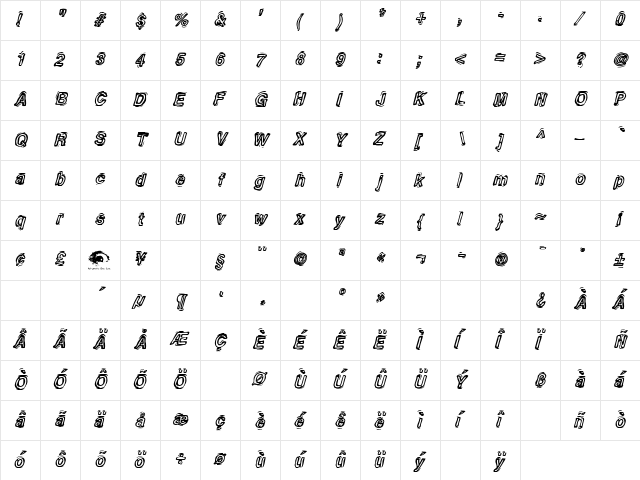
Motherlode Stripped AOE Italic
Design Context for Motherlode Stripped AOE Typeface
Motherlode Stripped AOE is a composed and adaptable typeface that performs quietly and consistently across a wide range of design contexts. Its italic angle brings a sense of urgency and motion to the letterforms.
Pro Tip: Use Motherlode Stripped AOE for emphasis, pull quotes, and subheadings where its slanted energy can add rhythm to the layout.